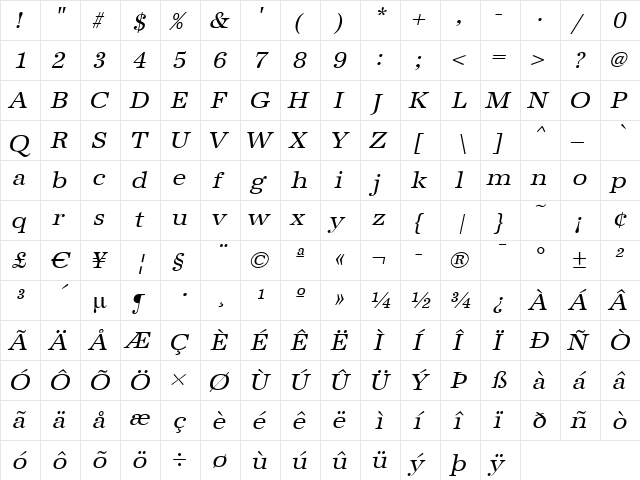
IrisBeckerWide Italic Font Preview
IrisBeckerWide Italic
Design Context for IrisBeckerWide Typeface
IrisBeckerWide offers clean, dependable letterforms without strong stylistic allegiance, making it a practical choice for designers who need flexibility. The dynamic lean of this cut emphasises speed and emphasis in any layout.
Pro Tip: Try IrisBeckerWide for annotation and caption copy alongside an upright companion — the contrast in angle creates a dynamic but ordered typographic system.